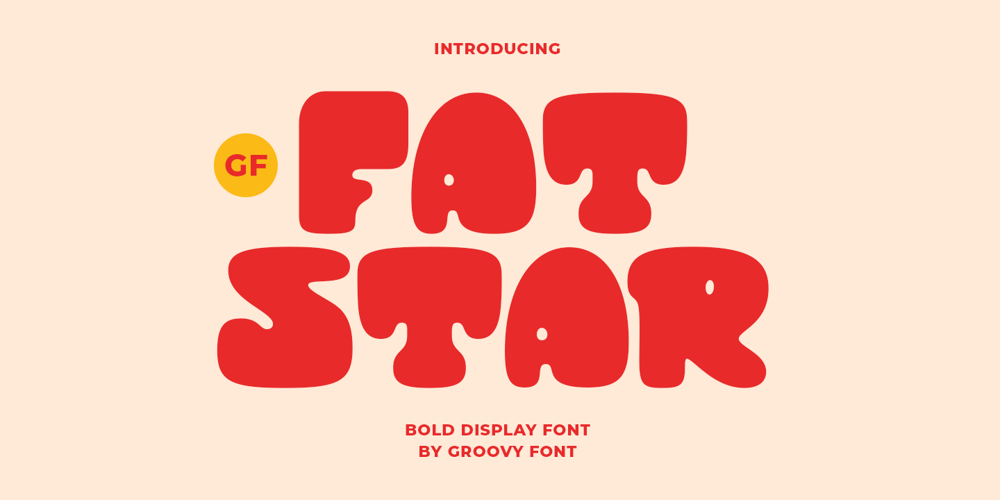
GF Fatstar Font Family was designed by Ahmad Ginanjar Riyadi and published by Groovy Font. GF Fatstar contains 1 styles and family package options. GF Fatstar is a bold display font known for its cheerful and unique appearance. With its bold and striking design, it is ideal for making a statement in creative projects that call for a strong visual impact. This font is sure to catch the eye and add a touch of playfulness to any design.What’s you’ll get : – Uppercase, Lowercase, Numeral, Punctuation & Multilingual.For any questions please contact me 🙂Thank You !